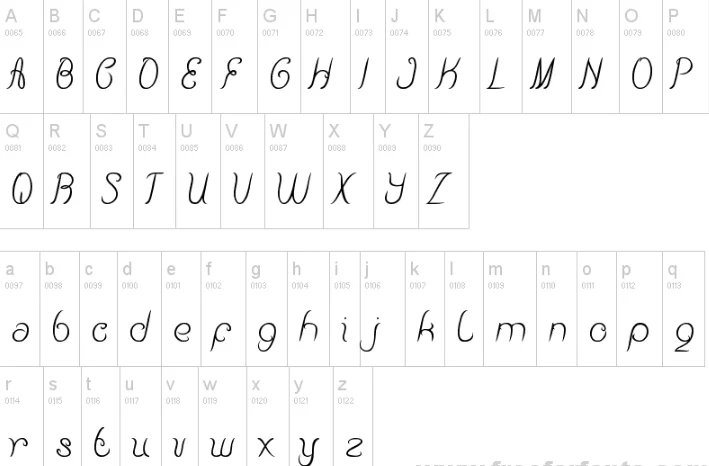
Beauty And The Best Font
Beauty And The Best Font is perfect for a wide range of design projects including fairytale branding, romantic logos, storybook covers, enchanted wedding invitations, beauty product packaging, magical event posters, children's books, and whimsical social media graphics. Its charming character makes it an ideal choice for projects that celebrate elegance, romance, and timeless storytelling.
What makes Beauty And The Best Font exciting is its enchanting ability to capture the magic of classic fairy tales while delivering modern design versatility. The font features gracefully crafted letterforms that blend elegance with playful charm, creating a sense of wonder and romance. Its distinctive personality transports viewers into a world of beauty and imagination, making every design feel special and memorable.
Beauty And The Best Font comes in multiple font families including Regular, Bold, Light, Decorative, Ornamental, and various stylistic alternates. These comprehensive options allow designers to create layered typographic compositions that enhance the magical atmosphere and romantic appeal of their creative work.
Whether you're designing enchanted branding, creating captivating storybook layouts, or developing romantic marketing materials, Beauty And The Best Font Free Download offers the perfect blend of elegance and whimsy. The font's versatile nature works beautifully for both headline applications and decorative elements, ensuring your designs capture hearts and inspire imagination with every letter.